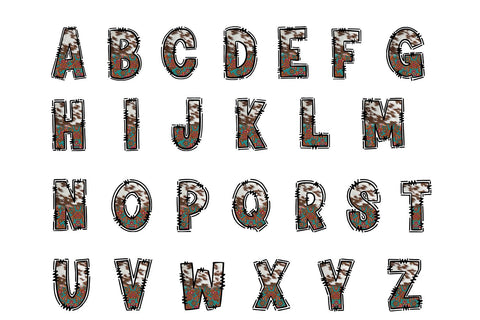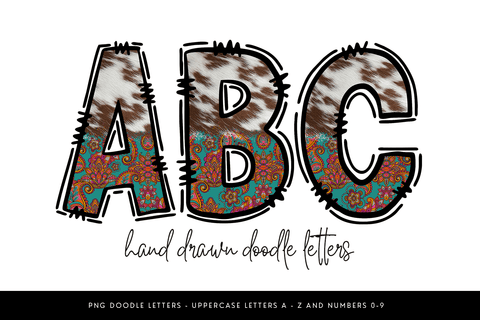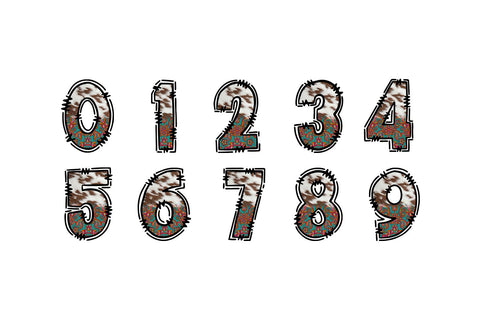
Cowhide and Paisley Doodle Letters
This colorful western doodle alphabet combines cowhide texture with vibrant teal paisley patterns for a bold cowgirl vibe. Great for sublimation projects, rodeo party decor, or western boho crafts.
✦ Uppercase letters A-Z
✦ Numbers 0 - 9